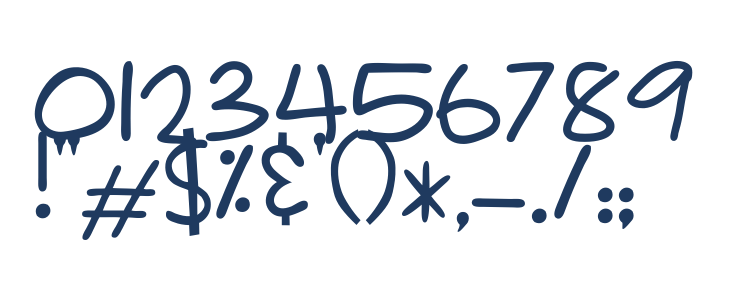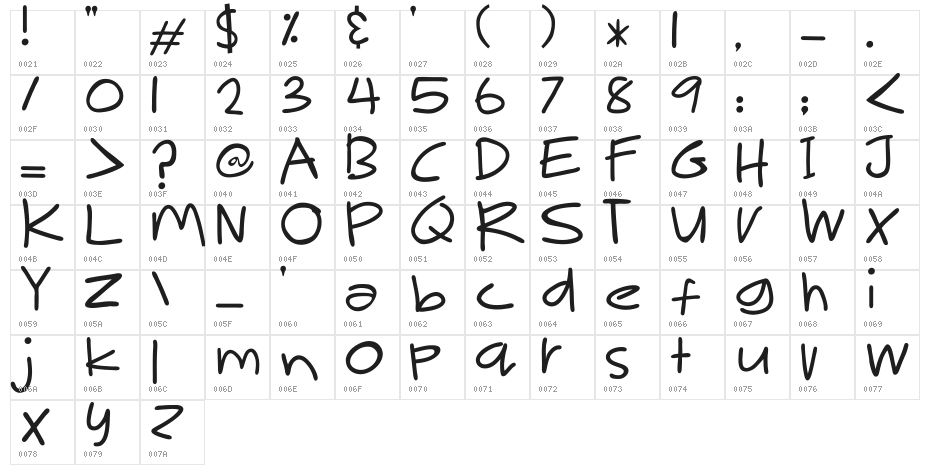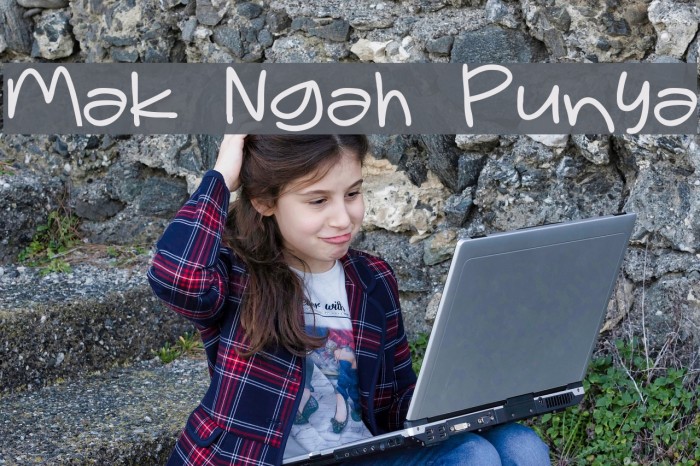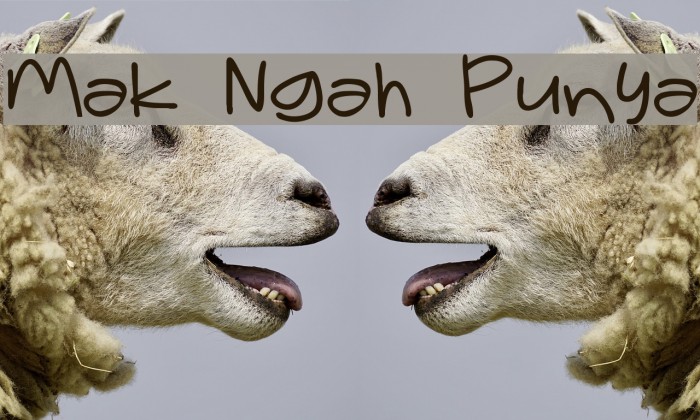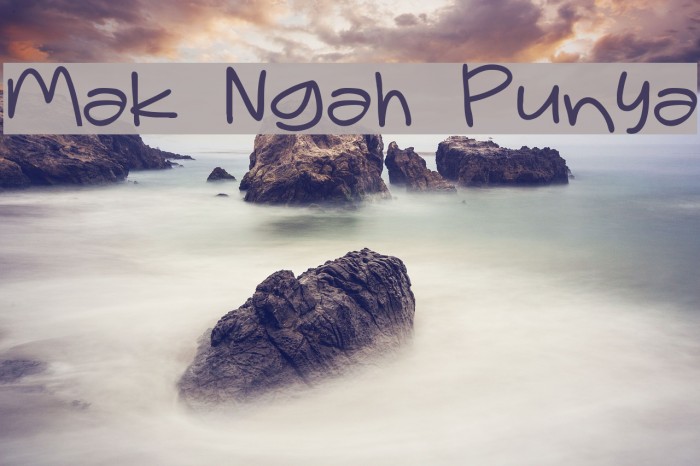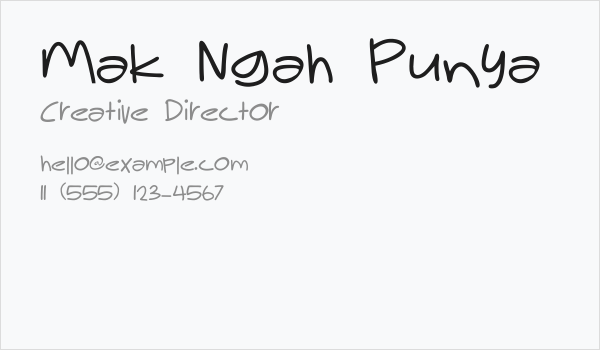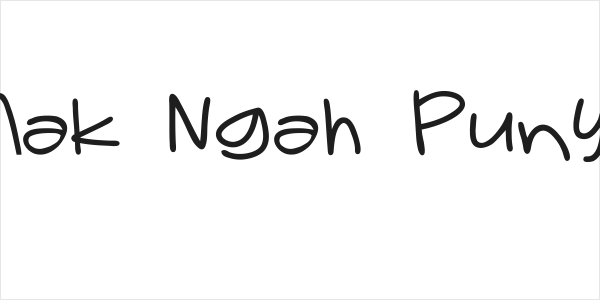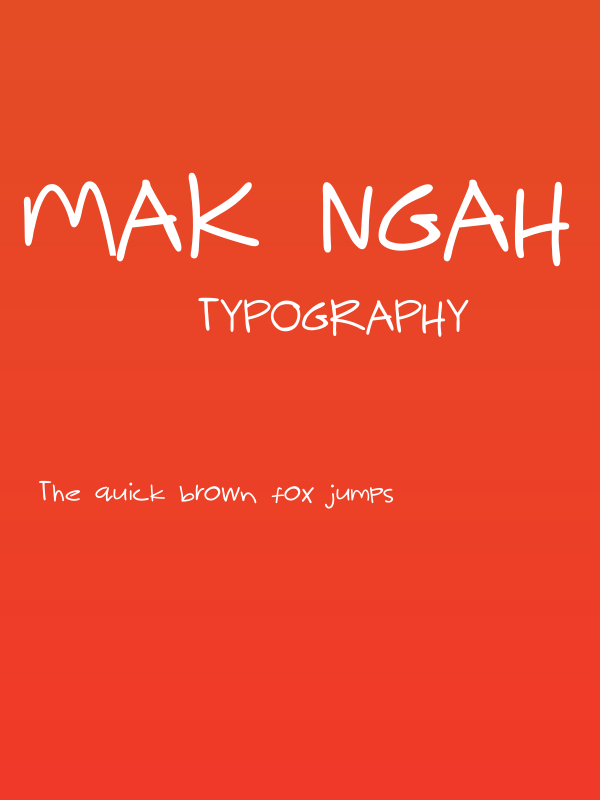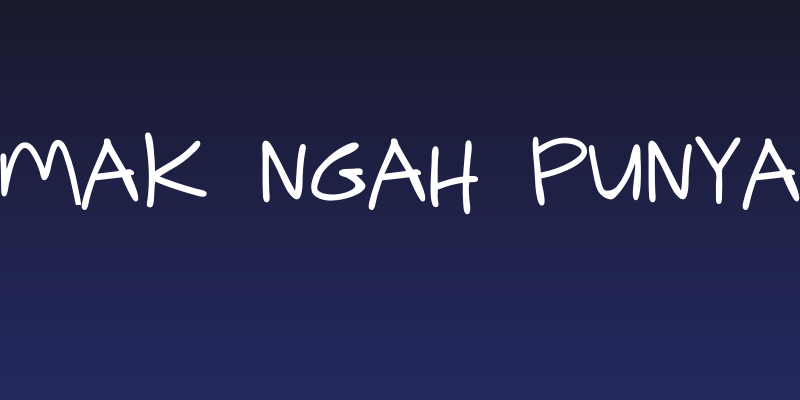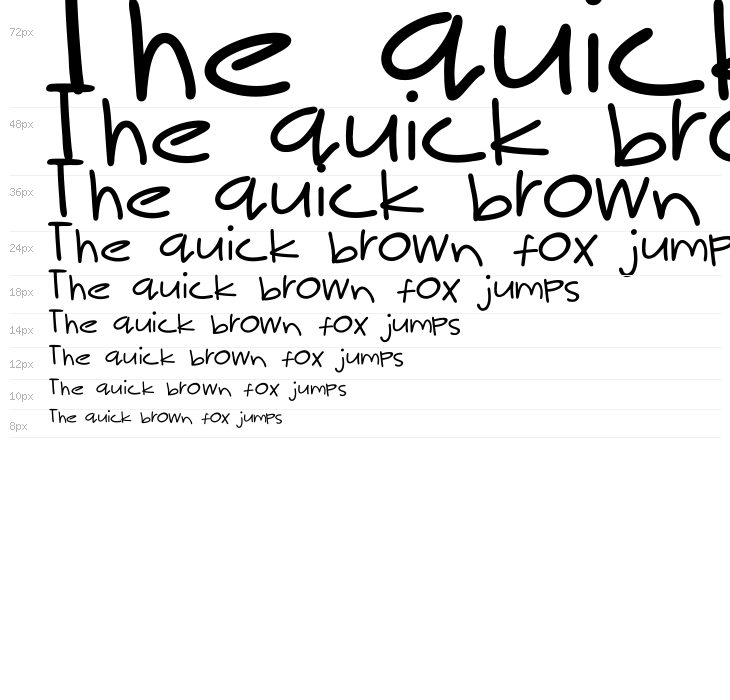
Mak Ngah Punya Font
Mak Ngah Punya Description
This playful and informal font features a handwritten style with a casual and friendly appearance. The characters are slightly irregular, giving them a natural and organic feel. The strokes are smooth and rounded, contributing to a relaxed and approachable look. The uppercase and lowercase letters maintain a consistent style, while the numerals and special characters blend seamlessly with the overall design. This font exudes a sense of creativity and spontaneity, making it ideal for projects that require a personal touch.
| Proposed Projects | Ideal for greeting cards, children's books, personal blogs, and creative branding. |